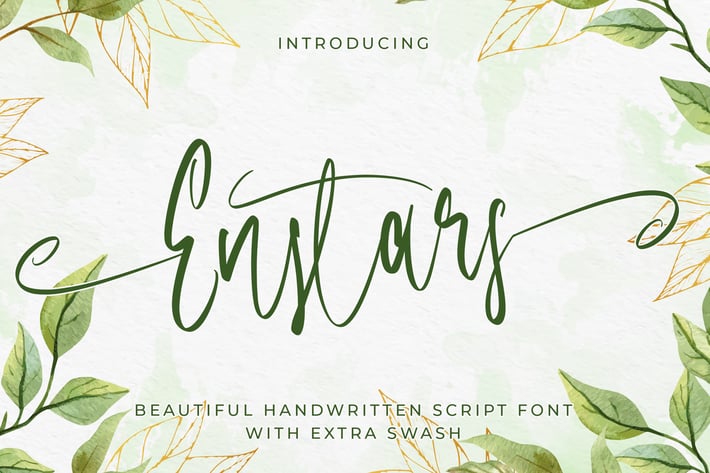
Enstars Beautifull Handwritten Font
Enstars Is Beautifull Handwritten Font that has a distinctive character that is very thick and elegant to use
Enstars is a relaxed and flowing handwritten script font. Incredibly versatile, this font fits a wide pool of designs, elevating them to the highest levels. Add this font to your favorite creative ideas and notice how it makes them come alive!